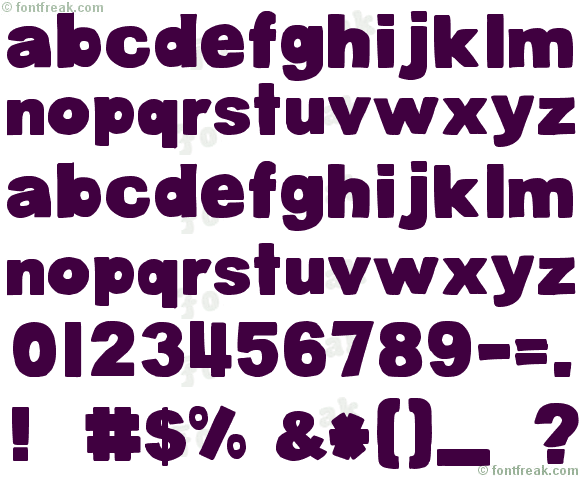
DJB BellyButton-Innie Bold, designed by Darcy Baldwin, is a striking display typeface that exudes a playful yet bold character. This font is categorized as a decorative typeface, making it perfect for projects that require a touch of whimsy. The visual characteristics of DJB BellyButton-Innie Bold include thick, rounded strokes that create a robust presence, while the uniform stroke weight ensures consistency throughout the letterforms. The spacing between characters is generous, allowing for easy readability and a casual, inviting feel.
Ideal for a variety of creative applications, this font shines in contexts such as children's book titles, playful branding, event flyers, and eye-catching restaurant menus. Its unique style and approachable aesthetic make it a favorite among graphic designers and small business owners looking to add a fun element to their projects. Content creators will also appreciate its versatility, as it can seamlessly blend with images or other design elements, enhancing overall visual appeal.
The target audience for DJB BellyButton-Innie Bold includes graphic designers, small business owners, and content creators who seek to infuse their work with a lively and distinctive touch. Its free license makes it accessible for anyone looking to incorporate a unique font into their designs without the constraints of a paid license.
What sets DJB BellyButton-Innie Bold apart is its ability to convey personality and charm while maintaining clarity and legibility. This font is not just a typeface; it's a statement piece that adds character to any design. For those interested, a DJB BellyButton-Innie Bold font free download is available, allowing users to explore its unique attributes in their creative projects.